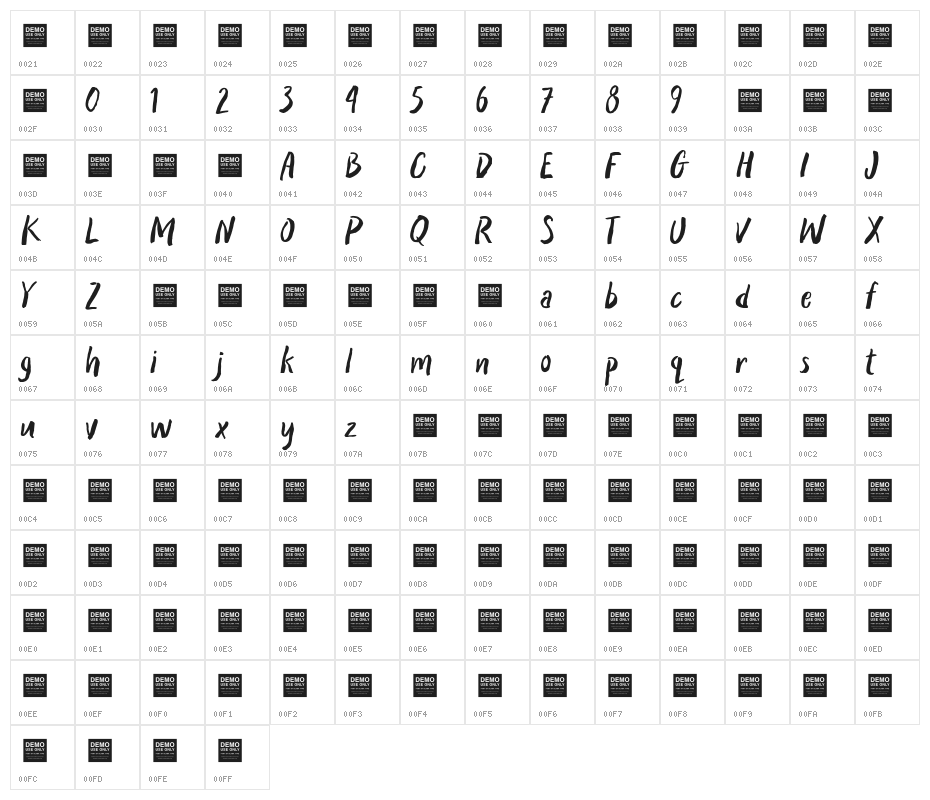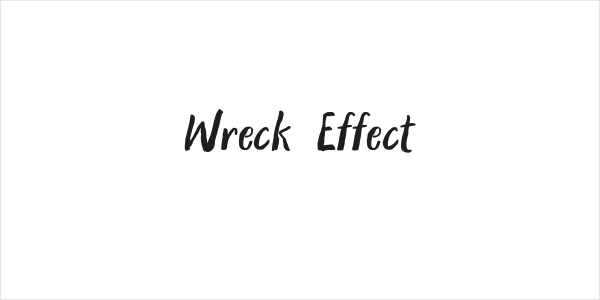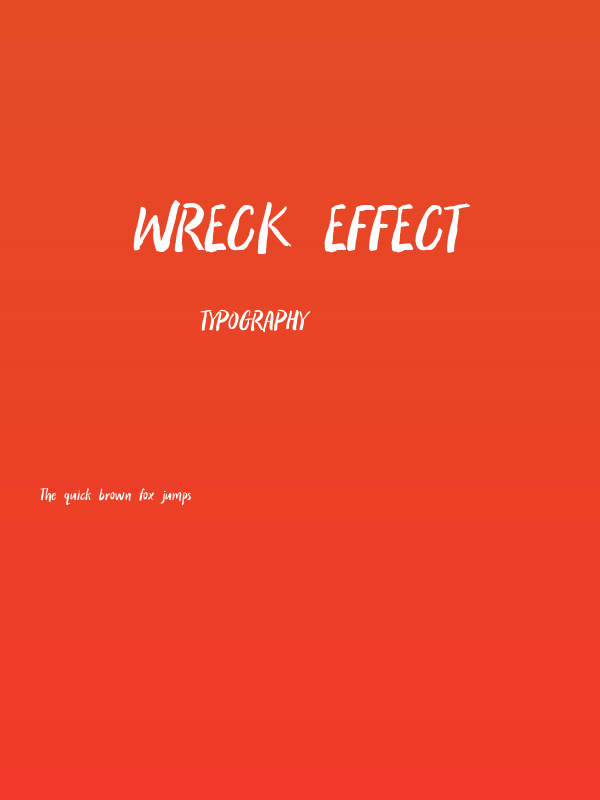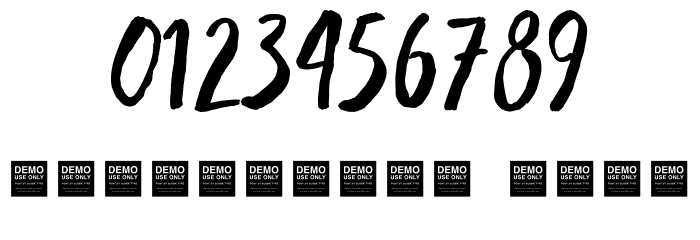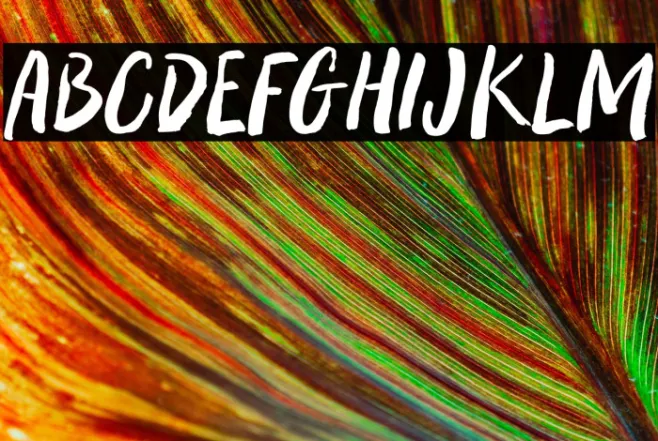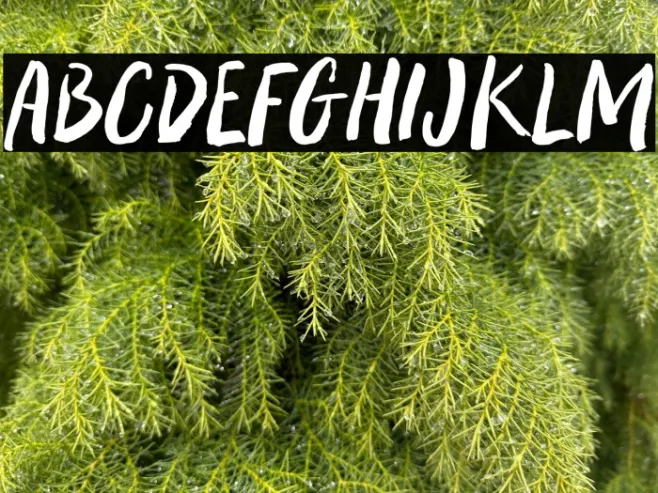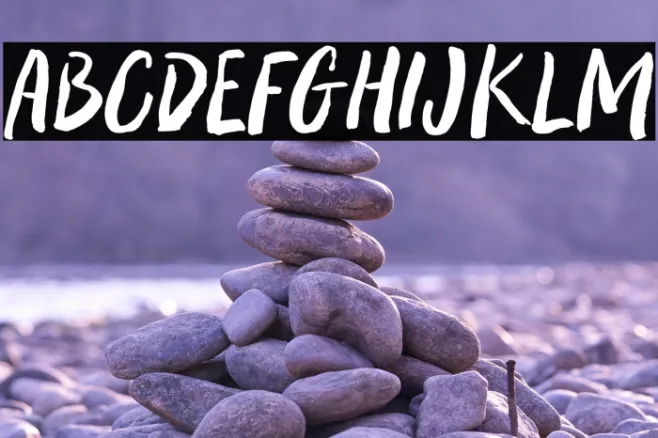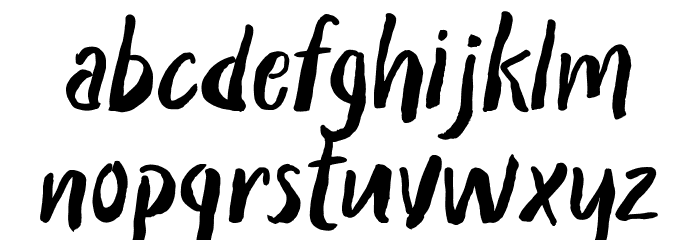
Wreck Effect Font
Wreck Effect Description
This font features a bold, brush-like style that exudes a sense of energy and movement. The strokes are uneven and dynamic, giving it a hand-painted appearance. The uppercase and lowercase letters maintain a consistent flow, with slightly exaggerated curves and angles that enhance its artistic flair. Numbers and special characters follow the same expressive style, making it versatile for creative projects. The font's organic and spontaneous look makes it ideal for designs that require a personal touch or a bold statement.
| Proposed Projects | Ideal for branding, posters, album covers, and any project requiring a bold, artistic touch. |